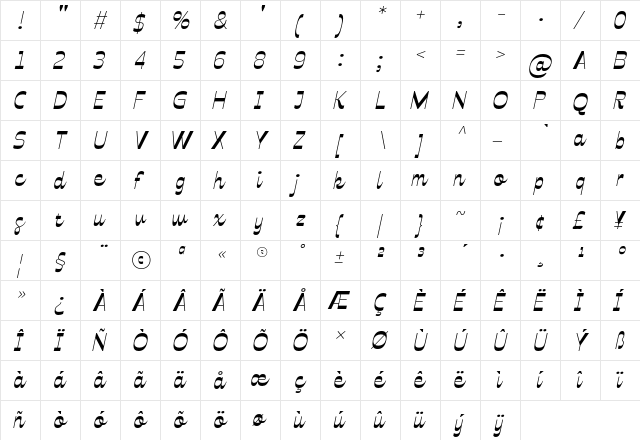
Celestine SemiBoldItalic Font Preview
| Foundry | Anugrah Pasau |
| Designer | Anugrah Pasau |
Design Context for Celestine Typeface
Celestine offers clean, dependable letterforms without strong stylistic allegiance, making it a practical choice for designers who need flexibility. Its italic angle brings a sense of urgency and motion to the letterforms. The heavy weight commands attention and anchors typographic hierarchies.